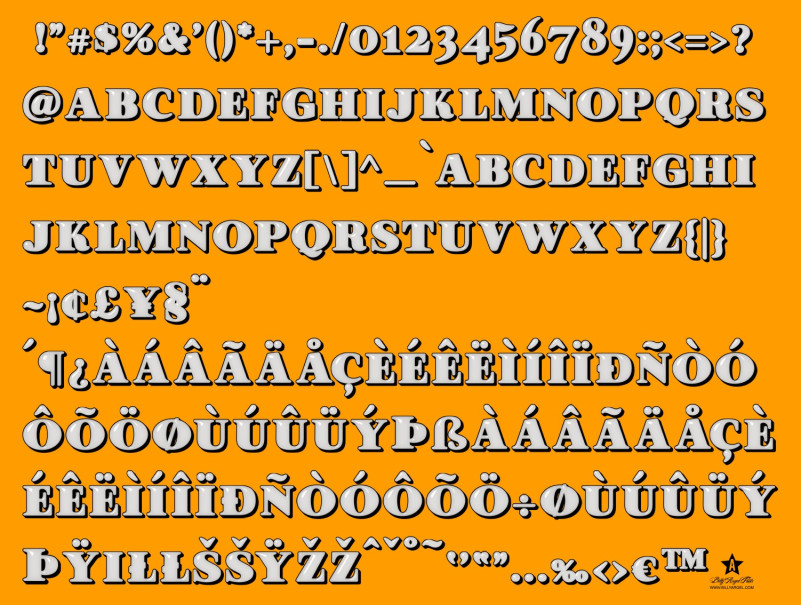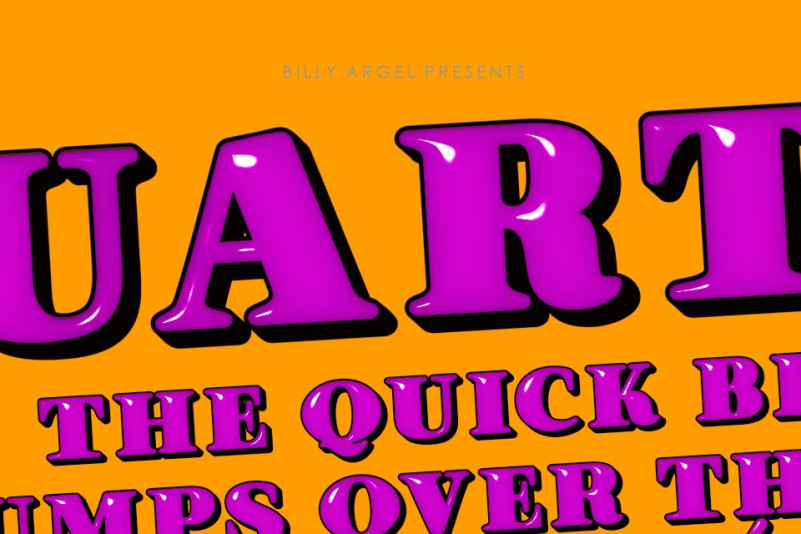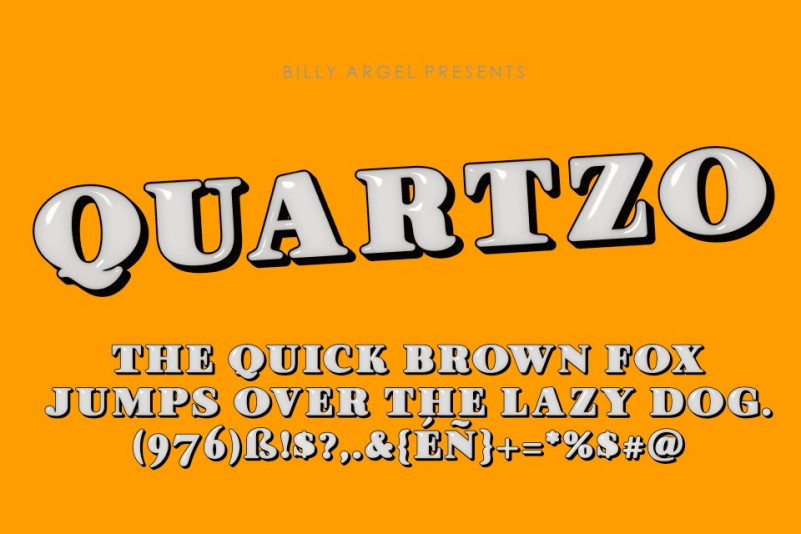
Quartzo Font
Quartzo Font, this font was created for all forms of business and branding such as clothing, logos, skate boards and others according to your needs.